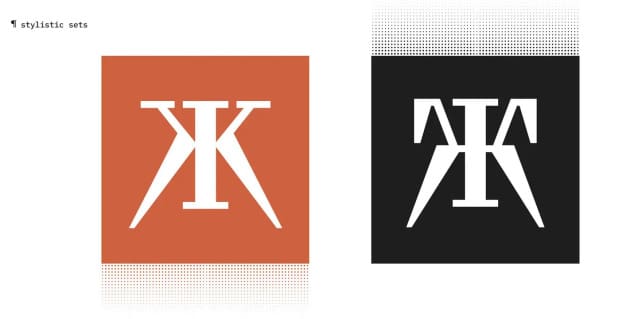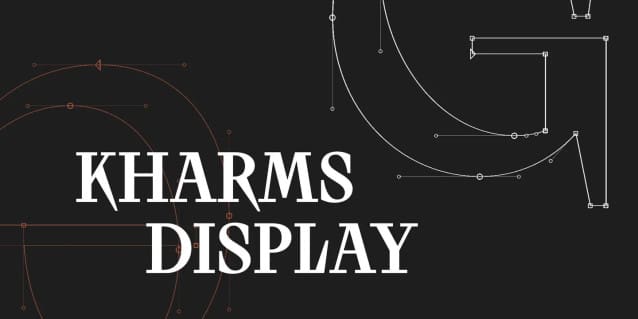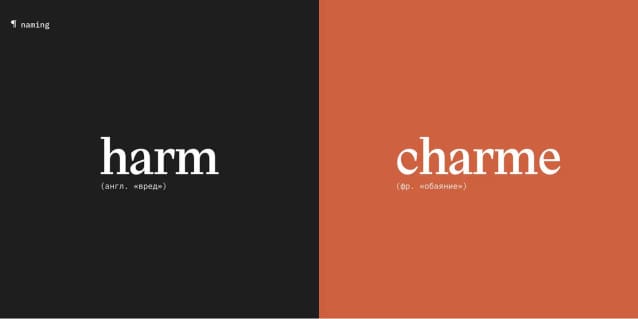
Kharms Display Font
Kharms Display Font is a charming and eccentric serif typeface. It was inspired by the title lettering in a series of soviet book covers from the first half of XX century. Strong and rough serifs in Cyrillic Б and T with tense counters set the style of Kharms. The concept of making something both savage and elegant has defined the name of the typeface. Daniil Kharms Display is a great absurdist poet.
His surname is consonant with the English word “harm” and the French word “charme” (charm). This contradiction is perfectly consistent with the character of the typeface. Kharms character is in its details: beak-shaped serifs, elongated and sharp legs in R K Ж Я, additional sharpness due to the triangular shapes of the letters Л, Д, M, dynamic tilt of counter in round letters and the letter И with reverse contrast, as a tribute to the literary background of the typeface. A modern approach to these details makes the typeface relevant and expressive. Designed by Ilya Buravchikov.